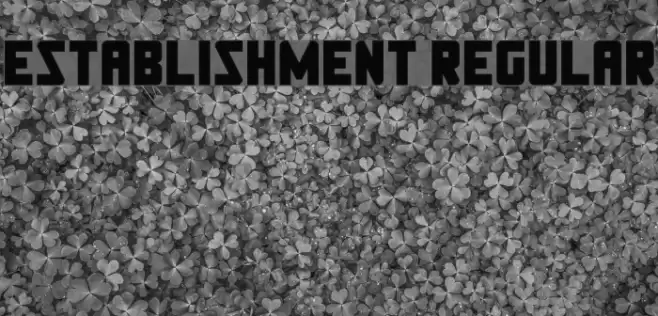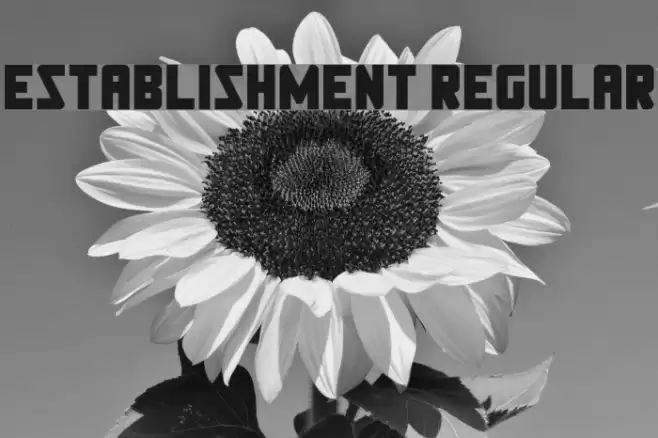
Establishment Regular Font
Establishment Regular Description
This typeface features a bold and robust design, characterized by thick, block-like letters that convey a strong and assertive presence. The uppercase and lowercase letters maintain a consistent width, giving the font a uniform appearance. The geometric shapes and straight lines contribute to a modern and industrial feel, while the slightly condensed letterforms enhance its compactness. The numbers and special characters are designed to match the boldness of the alphabet, ensuring a cohesive look across all text. This font is ideal for projects that require a commanding and impactful visual statement.
A bold, geometric typeface with a modern, industrial aesthetic from Uncategorized fonts.
- Proposed Projects: Ideal for branding, posters, headlines, and signage where a strong visual impact is needed.